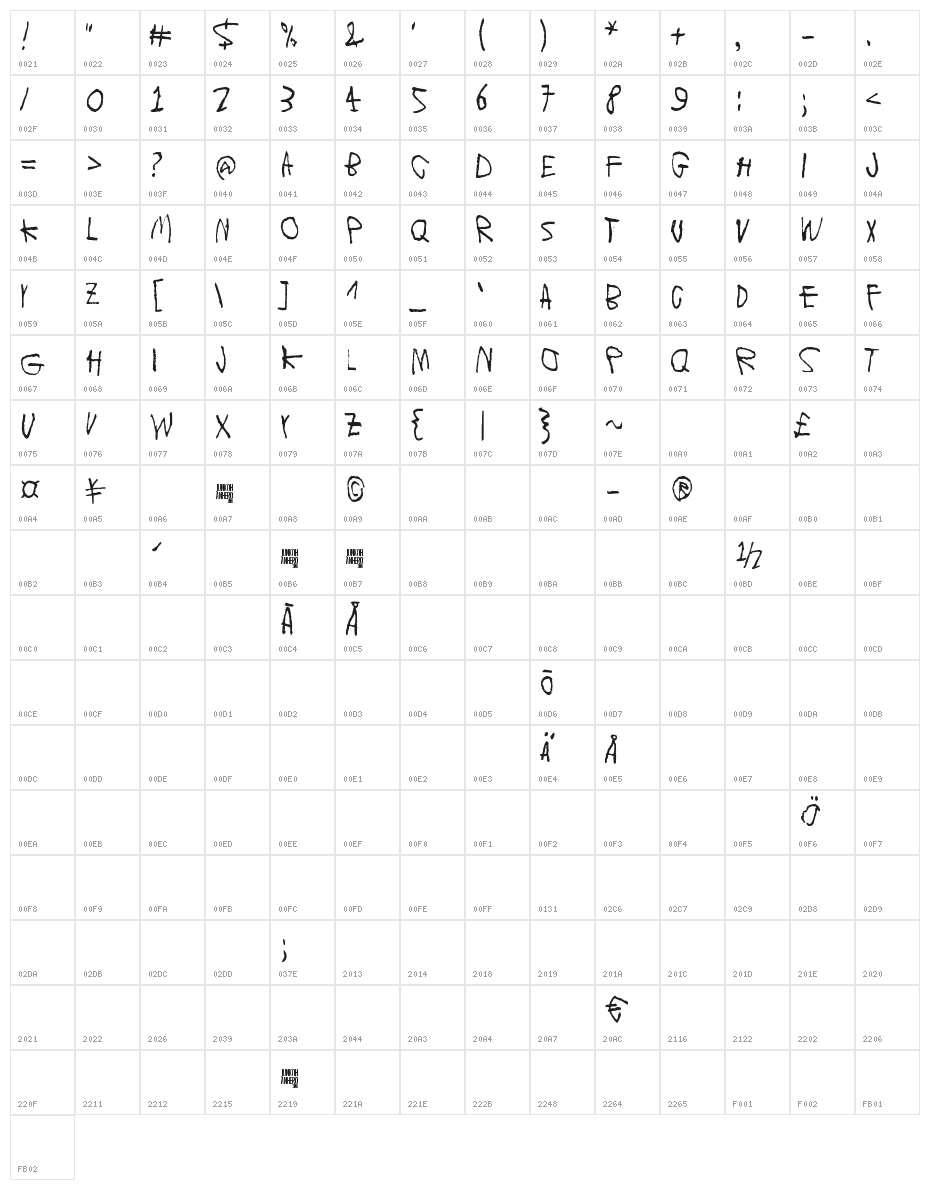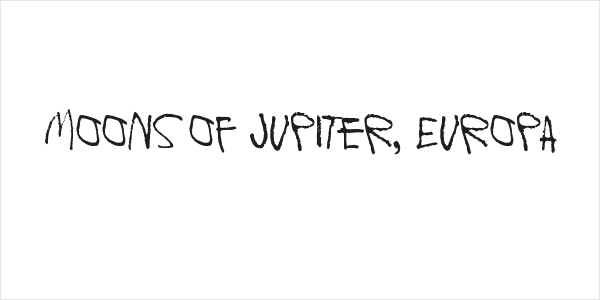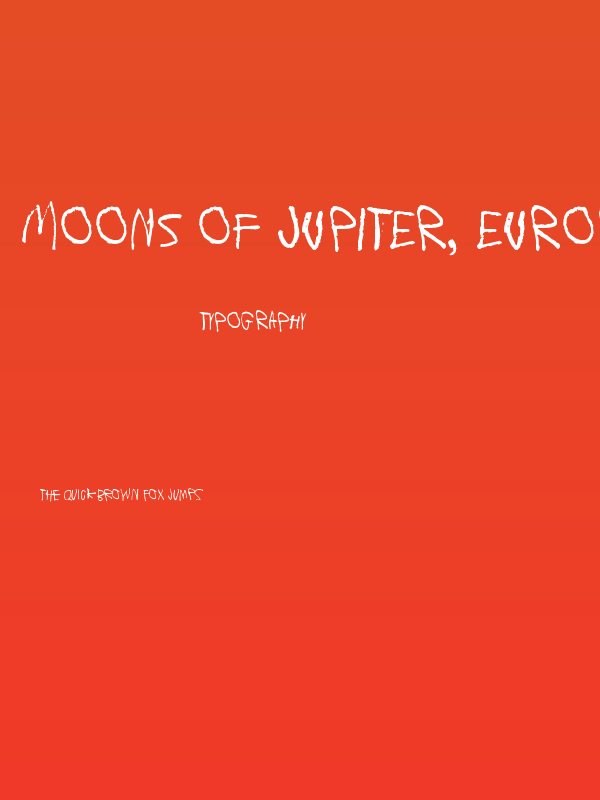
Moons of Jupiter, Europa Font
Moons of Jupiter, Europa Description
This font exhibits a raw, hand-drawn style that mimics the appearance of brush strokes or marker writing. The characters are irregular and slightly distorted, giving them a unique, organic feel. The uppercase and lowercase letters maintain a consistent style, with each character showing slight variations in width and height, enhancing the handwritten aesthetic. Numbers and special characters follow the same design principles, contributing to the font's cohesive look. The overall impression is casual and artistic, making it suitable for projects that require a personal touch.
| Overall Style | Artistic |
| Use Case | Logos, Posters, Artistic Branding |
| Proposed Projects | Ideal for creative projects such as posters, album covers, and artistic branding where a personal, informal touch is desired. |